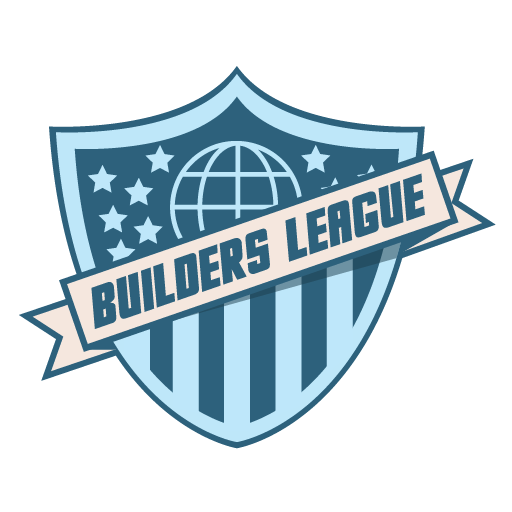
This Slightly Odd Font Appears in Only One Piece of Art in Team Fortress 2
This shield image is a piece of art that originates in the PASS Time game mode in Team Fortress 2, a multiplayer first-person shooter game developed by Valve Software. In the mid-2010s Valve partnered with a smaller developer, Bad Robot Games, to produce this custom game mode called PASS Time; it's a combination of soccer, hockey, and basketball. At least, that's how the game describes it.
Each team, BLU and RED, has a shield/insignia representing them in PASS Time to help you better identify players around you while carrying the ball. This piece is the BLU team's insignia. It was published in the mid to late 2010s and theoretically intended to imitate a 70s style like the rest of the game, although I think they dropped that connotation somewhat for this game mode.
While searching on my own, the closest I got was WBP Nel Heavy by Studio Jasper Nijssen. However, notably missing in WBP Nel are the sharp interior corners on the S and the (bar? arm?) of the G. Those two features are strong identifiers of the mystery font, as well as the sharpened right corner of the U and the fully inserted leg of the R.